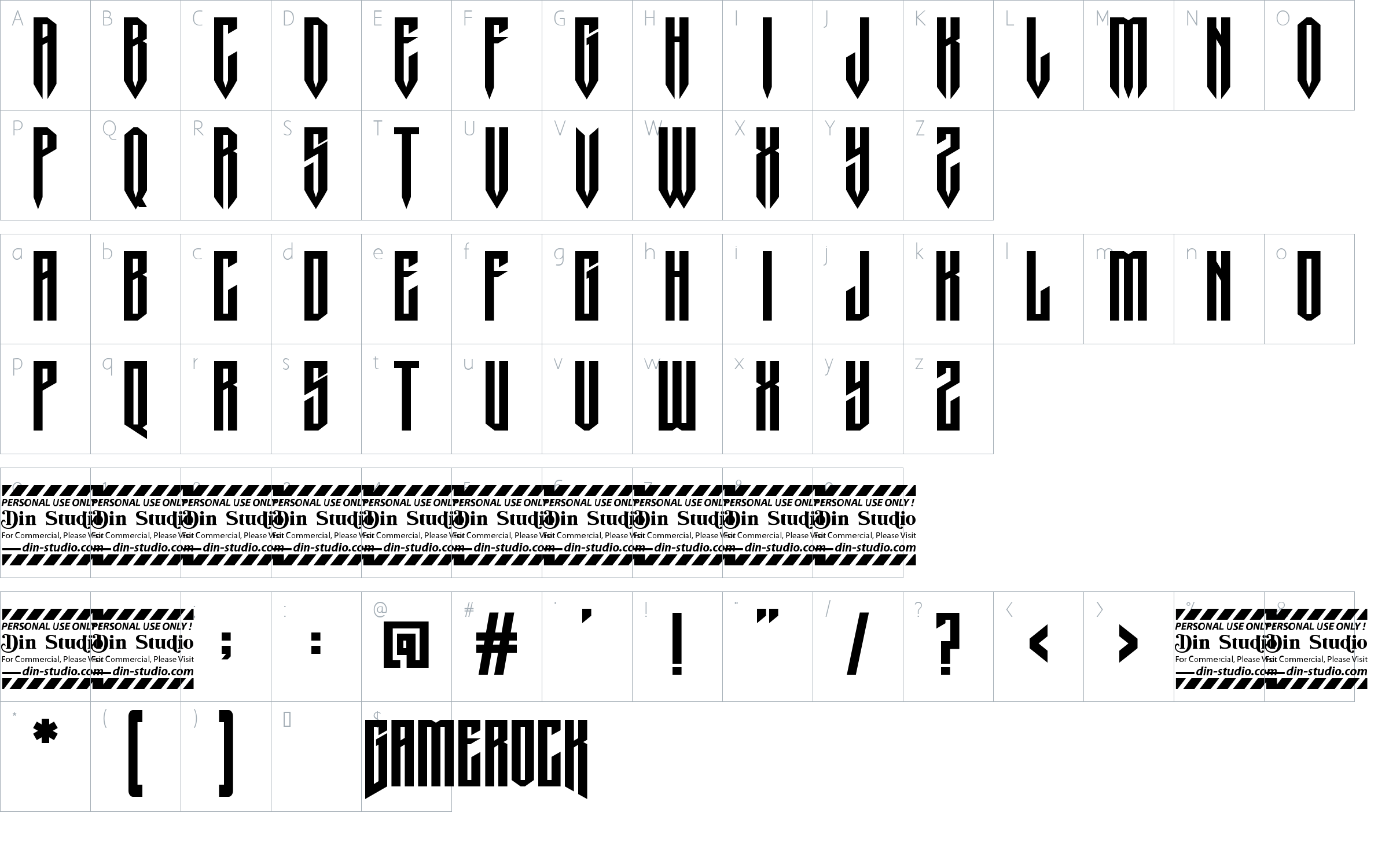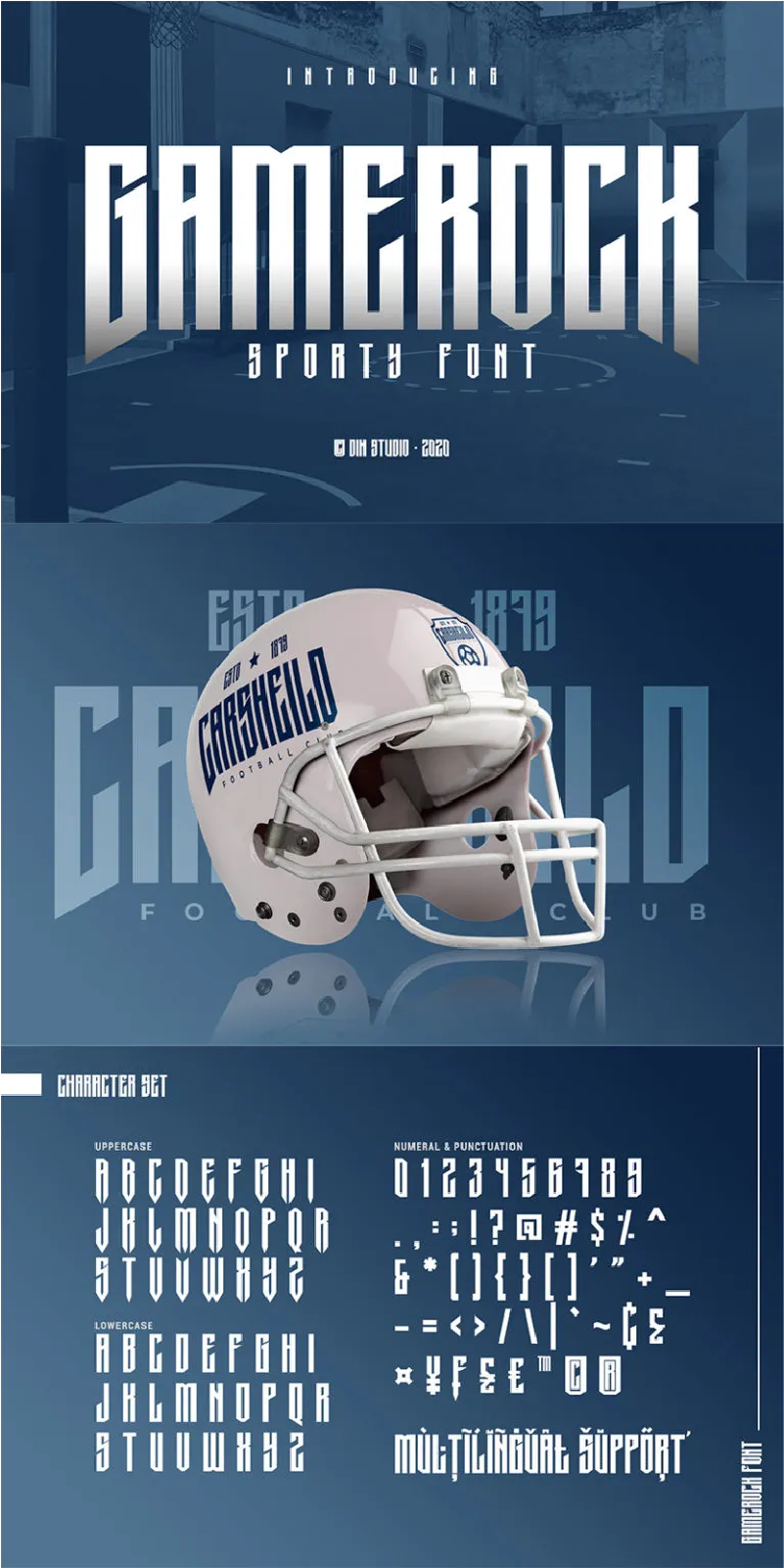
Gamerock Font
About Gamerock
Gamerock is a classic sport font made for any professional projects related to sports. It designed primarily as a captivating font to add the right amount of modernity and style. The font can be used for printings, brandings and quotes. See the previews above to get some inspiration on how you can use them. Happy Designing!